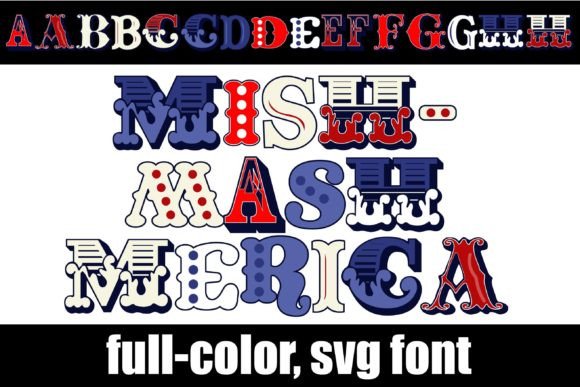
Dive into a mesmerizing world of fonts with Mishmash Merica, a colorful font family that sparks creativity like never before! This exceptional collection, crafted by Illustration Ink, bursts with vibrant hues of red, white, and blue – a captivating color palette that ignites imagination and breathes life into your digital creations.
Get ready to captivate your audience with an array of tantalizing fonts, each with a unique style that adds vibrancy to your projects. Unleash your inner artist and explore the endless possibilities that these fonts unlock.
But wait, there's more! Mishmash Merica's secret weapon lies in its alt version, accessible through your system's character map. Discover a hidden treasure trove of additional colors for every letter, expanding your creative horizon and igniting your passion for design.
Embrace the power of color and witness your designs come alive with Mishmash Merica. Dive into the world of Adobe products, Silhouette Studio, Quark, and Inkscape, where these full-color SVG fonts flourish and bring your creations to life. Experience the magic of color, where your imagination takes center stage and transcends the boundaries of ordinary design.